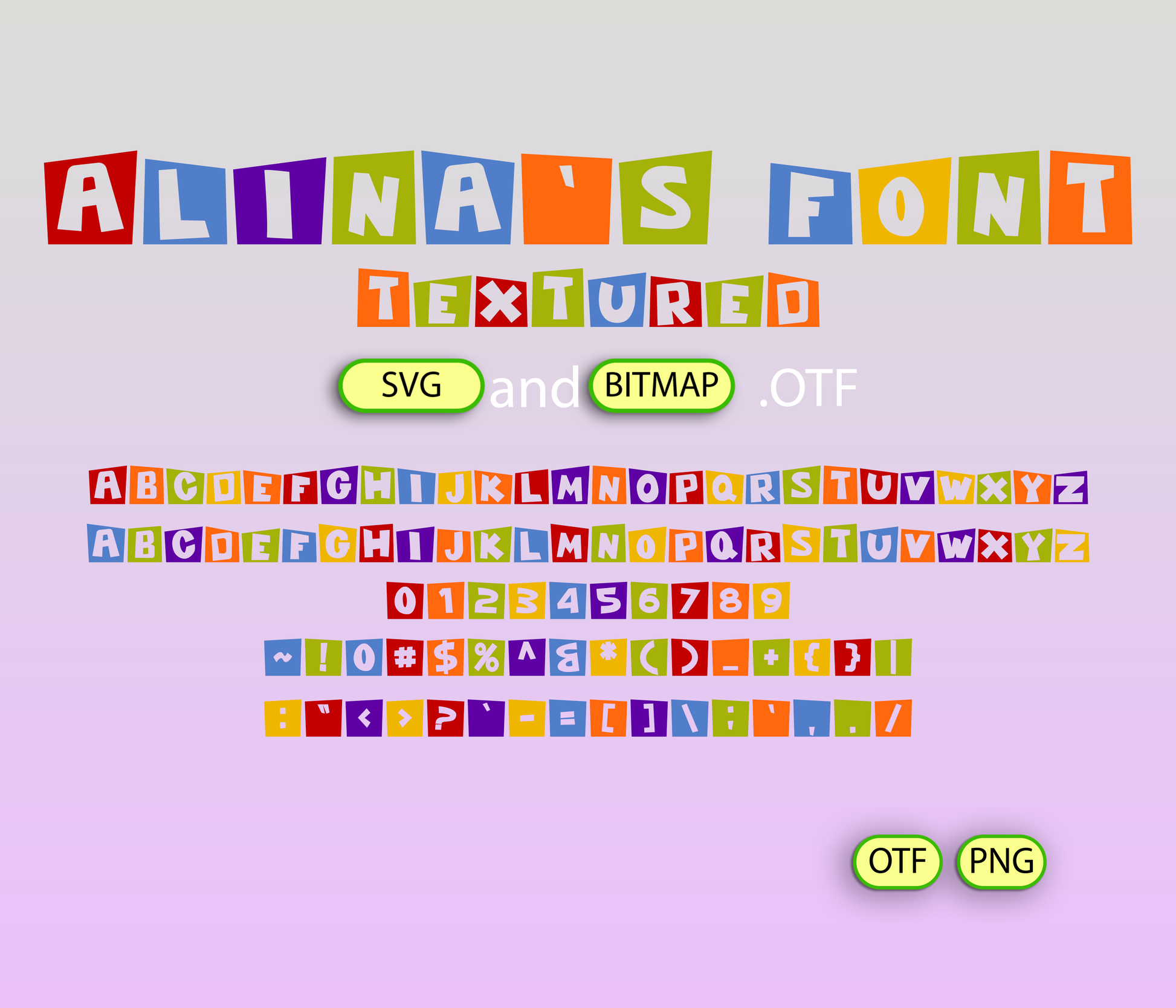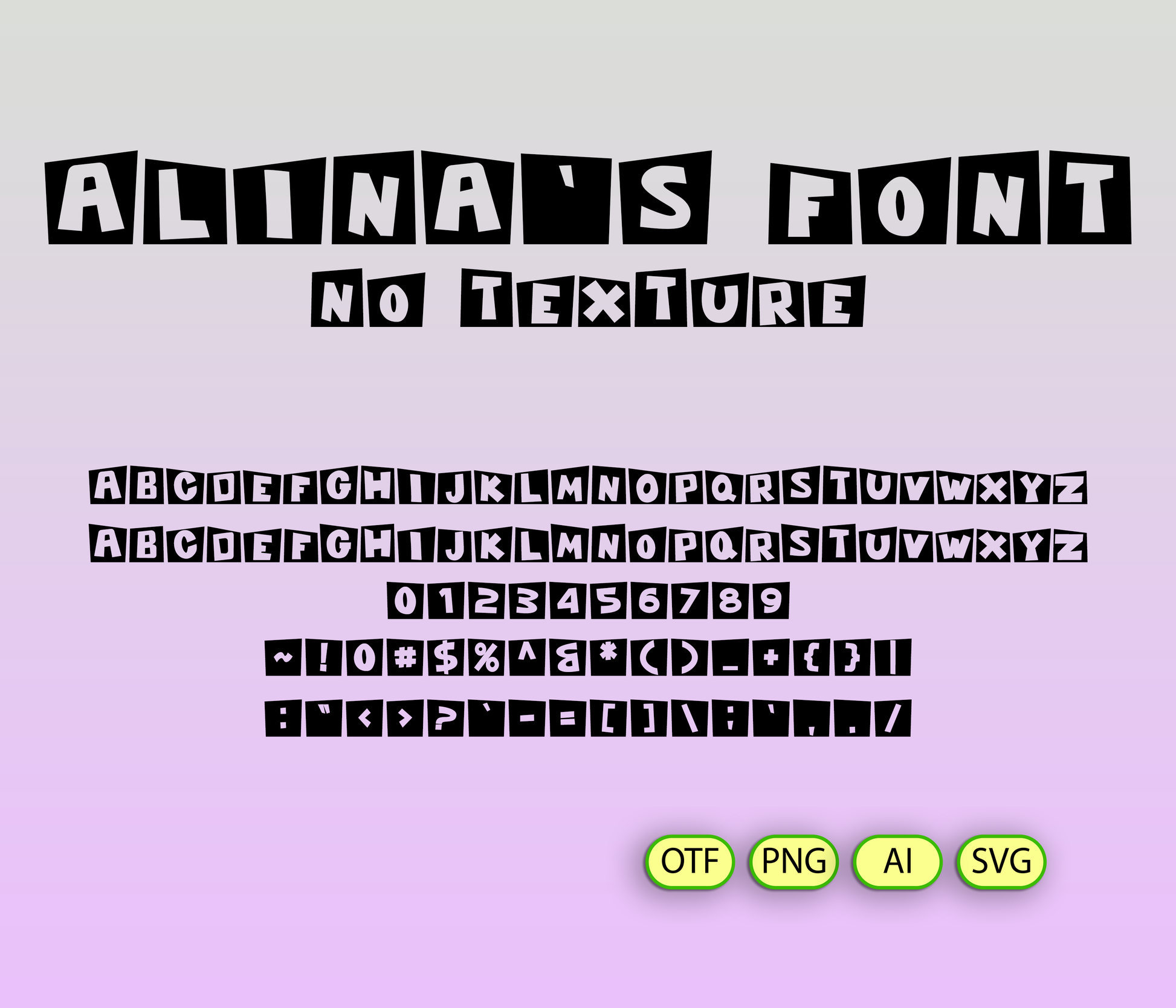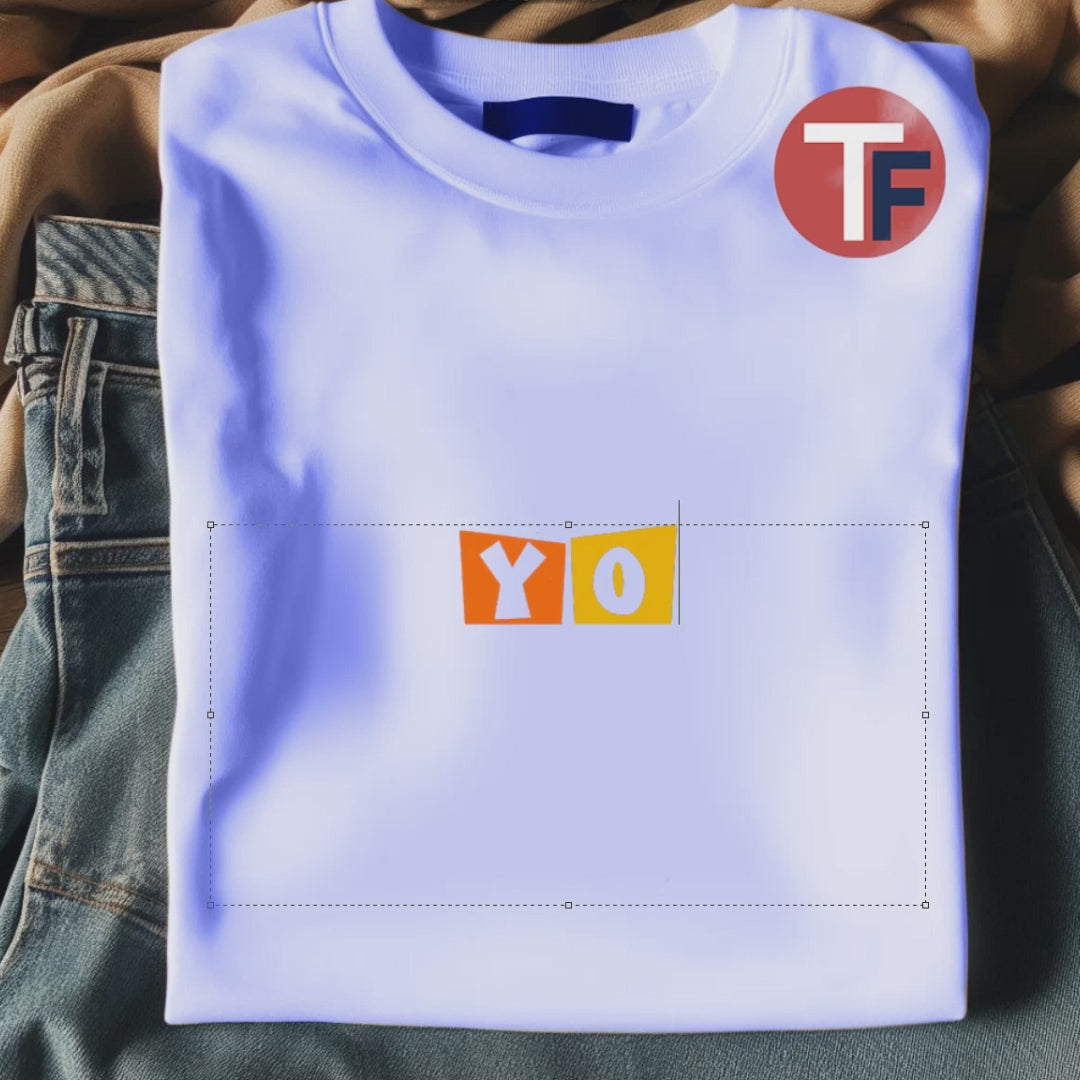
Kiddo Fun Font Textured
Bring Joy and Playfulness with the Kiddo Fun Font
Infuse your designs with the vibrant and cheerful spirit of Kiddo Fun with our specially designed font, inspired by beloved children's series. Perfect for fans, educators, and designers looking to add a touch of whimsy and joy to their projects, this font captures the playful and heartwarming essence of kid-friendly adventures. Whether creating educational materials, event invitations, or digital content, our Kiddo Fun font ensures your projects resonate with charm and fun.
Our Kiddo Fun-inspired font features rounded, playful characters with a simple, clean design that reflects the lighthearted and imaginative world of children's series. This versatile font is ideal for a variety of applications:
1. Educational Materials: Perfect for creating engaging and visually appealing worksheets, flashcards, and learning aids for young children.
2. Event Invitations: Ideal for crafting delightful invites for children's parties, playdates, or themed events.
3. Merchandise Design: Great for designing t-shirts, posters, and accessories that capture the fun and innocence of children's adventures.
4. Digital Media: Enhance websites, blogs, and social media content with cheerful headers and graphics.
5. Personal Projects: Add a playful touch to scrapbooking, DIY crafts, or home decor inspired by the adventures of kid-friendly characters.
To ensure maximum usability and flexibility, our Kiddo Fun-inspired font includes both textured and non-textured variants. The non-textured version is particularly beneficial, ensuring compatibility with all types of software, including Canva. This feature allows users of all skill levels to seamlessly incorporate the font into their designs, enhancing accessibility and ease of use across various digital and print platforms.
Many people seek out a Kiddo Fun Font generator online to mimic this look. Steer clear! No font generator can match the quality of this Kiddo Fun Font, which comes in two versatile versions: a textured colored font and a simple font. This is particularly beneficial if you plan to use it with a cutting machine.
Our Kiddo Fun font not only pays tribute to beloved children's series but also empowers you to infuse your designs with joy and playfulness. Whether crafting educational content, designing unique merchandise, or adding a whimsical touch to personal projects, this font allows you to communicate with vibrant and heartwarming spirit. Ready to brighten up your creative projects? This font is your gateway to adding a sprinkle of joy and imagination to every design.